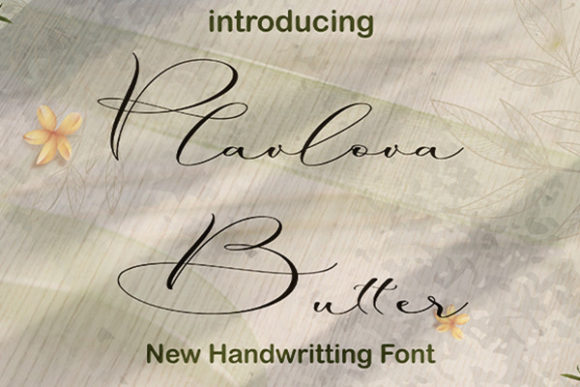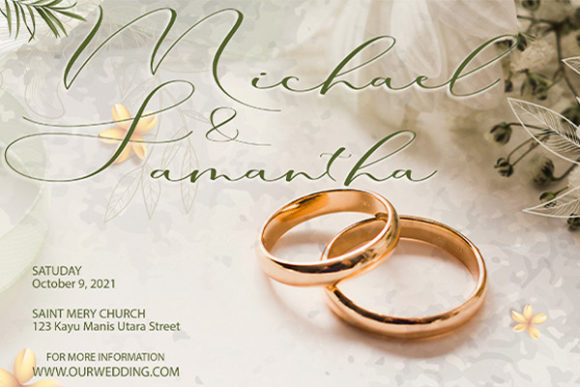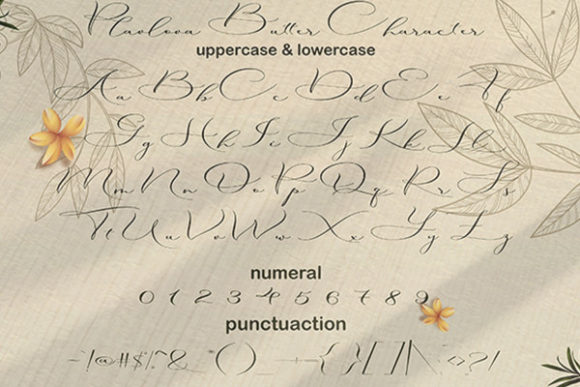
About Plavlova Butter Font
Introducing “Plavlova Butter,” a font that brings a delicate and slim script style to your creative projects. With its graceful strokes and elegant design, “Plavlova Butter” is a versatile choice for a wide range of applications. Whether you’re working on blog posts, logos, branding, ads, invitations, greeting cards, planners, photo albums, or decorations, this font adds a touch of sophistication to your designs.
Imagine “Plavlova Butter” as a fine brush that delicately paints your ideas onto the canvas of your projects. Its slim and stylish letters create a visual harmony that captures attention and conveys a sense of elegance. Each curve and line is carefully crafted to evoke a feeling of refinement and beauty, making “Plavlova Butter” a go-to choice for projects that require a touch of sophistication.
The versatility of “Plavlova Butter” ensures that your creativity knows no bounds. From bold logos to intricate invitations, this font adapts seamlessly to different design contexts, adding a layer of timeless charm. Let your imagination run wild as you explore the endless possibilities of incorporating “Plavlova Butter” into your work, creating designs that resonate with your audience and leave a lasting impression.
Whether you’re aiming for a classic look or a contemporary feel, “Plavlova Butter” is your companion for infusing your projects with a sense of elegance and style. Its delicate and slim script lends a unique character to your designs, making them stand out and capturing the essence of your creative vision. Embrace the beauty of “Plavlova Butter” and let it become an integral part of your design toolkit, enhancing every project with its sophisticated touch.